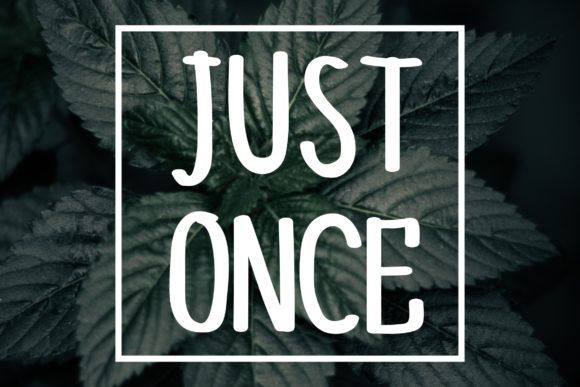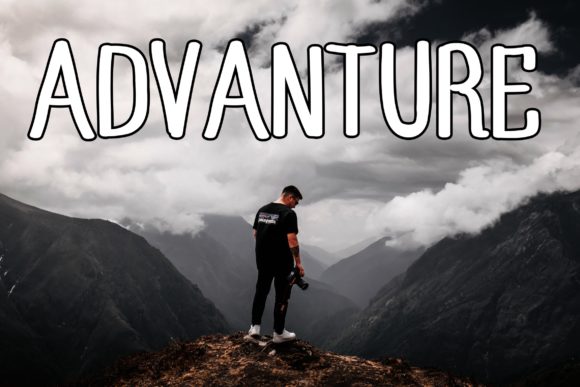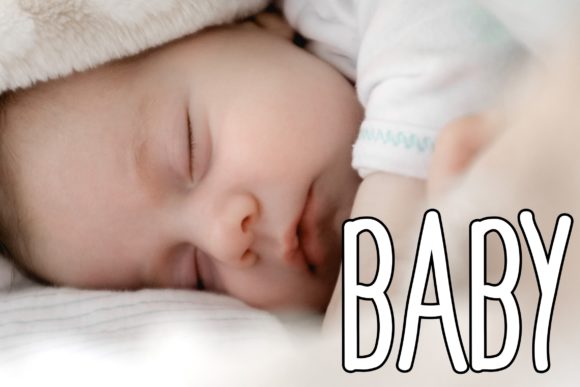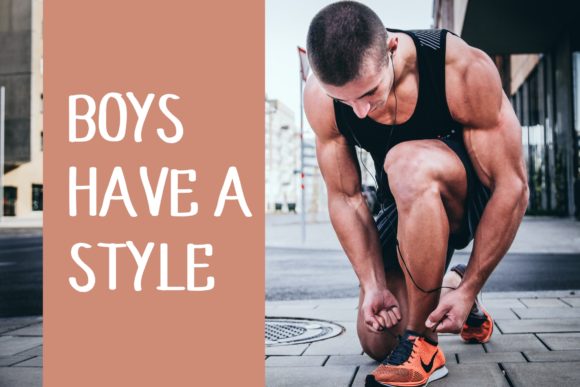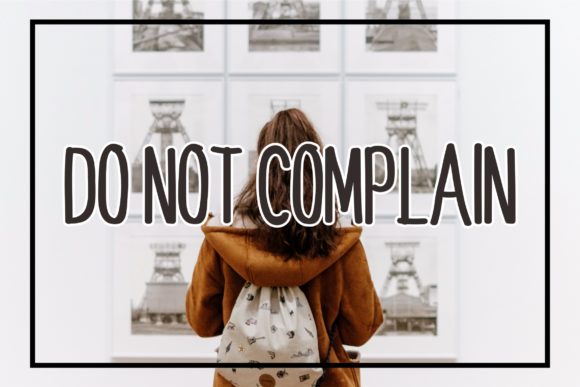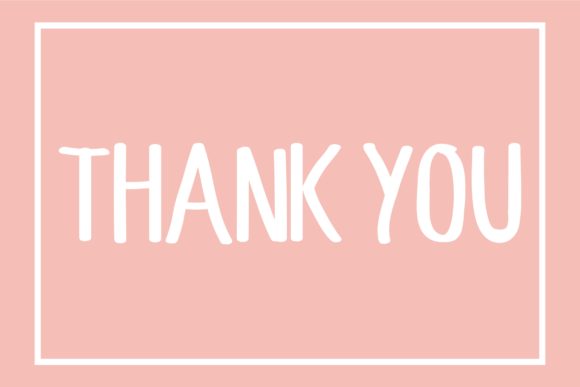
Discover the Whimsical Charm of Hallimshy Font
Are you ready to add a touch of magic to your designs? Look no further than the Hallimshy Font, a cute and whimsical color font that’s sure to inspire your creativity. With its unique feel and authentic charm, this font is perfect for designers and crafters looking to make their projects stand out.
What is Hallimshy Font?
Hallimshy is a color font, specifically an Opentype-SVG font, which means it’s a type of font that uses SVG (Scalable Vector Graphics) to display its characters. This allows for a wide range of colors and details, making it perfect for designs that require a high level of visual interest.
Key Features of Hallimshy Font
- Cute and Whimsical Design: Hallimshy Font has a playful and charming design that’s sure to delight.
- Unique Feel: This font has a distinctive feel that’s unlike any other font out there.
- Color Font: As an Opentype-SVG font, Hallimshy Font can display a wide range of colors and details.
So, what can you create with Hallimshy Font? The possibilities are endless! Here are a few ideas to get you started:
- Whimsical Stationery: Use Hallimshy Font to create playful and charming stationery, such as greeting cards, invitations, and journal pages.
- Crafting Projects: Add a touch of magic to your crafting projects, such as papercrafting, scrapbooking, and DIY decorations.
- Digital Art: Use Hallimshy Font to create stunning digital art, such as illustrations, graphics, and social media graphics.
Hallimshy Font is a unique and charming color font that’s perfect for designers and crafters looking to add a touch of whimsy to their projects. With its compatibility with popular design software and its wide range of creative possibilities, Hallimshy Font is sure to inspire your creativity and take your designs to the next level.